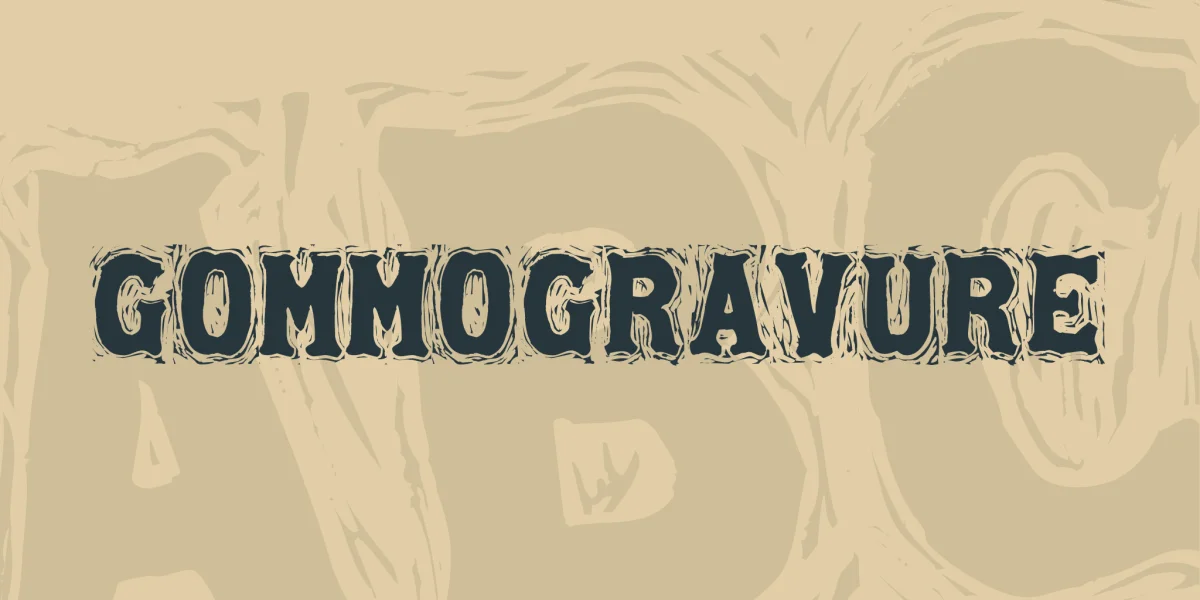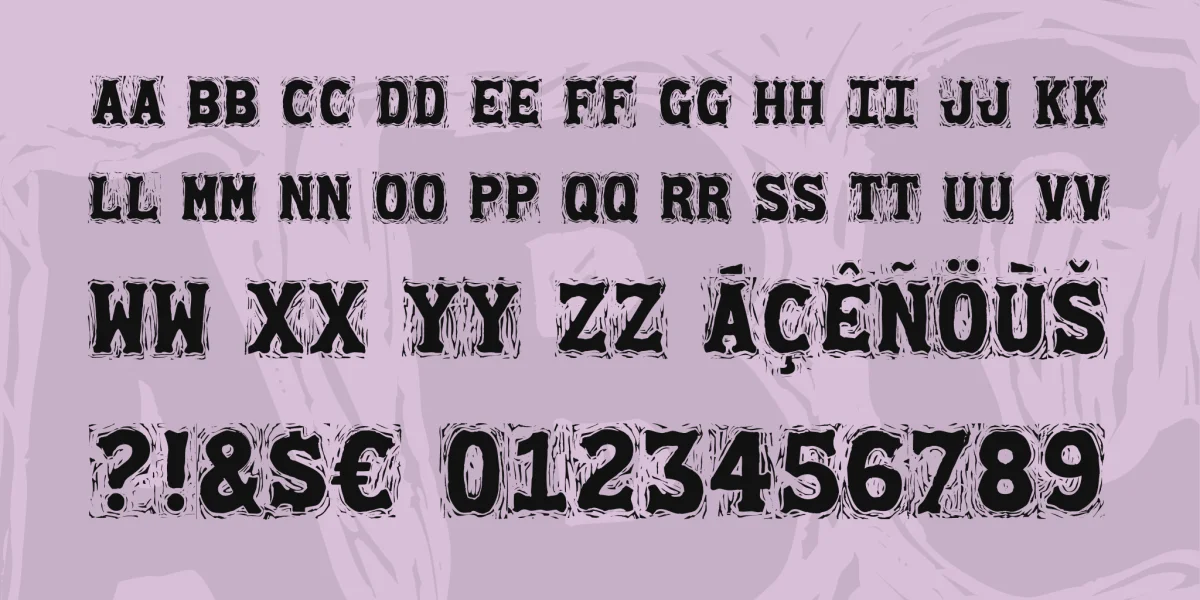
Gommogravure was created in response to Spanish mailartist, John Puig’s request for a series of erasercuts, engraved rubber stamps. I made cut erasers of 12 bold, serif, rustic style letters and used them as the model for a virtually monospaced, all caps, display font.